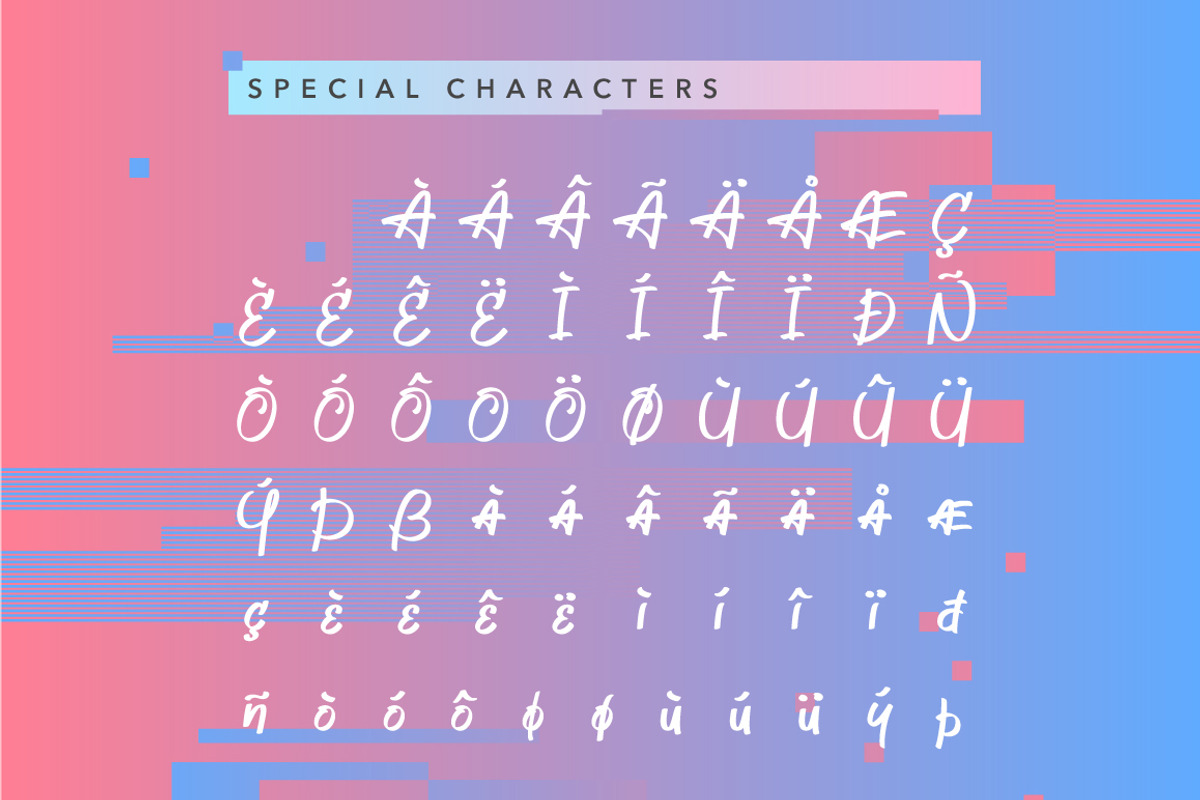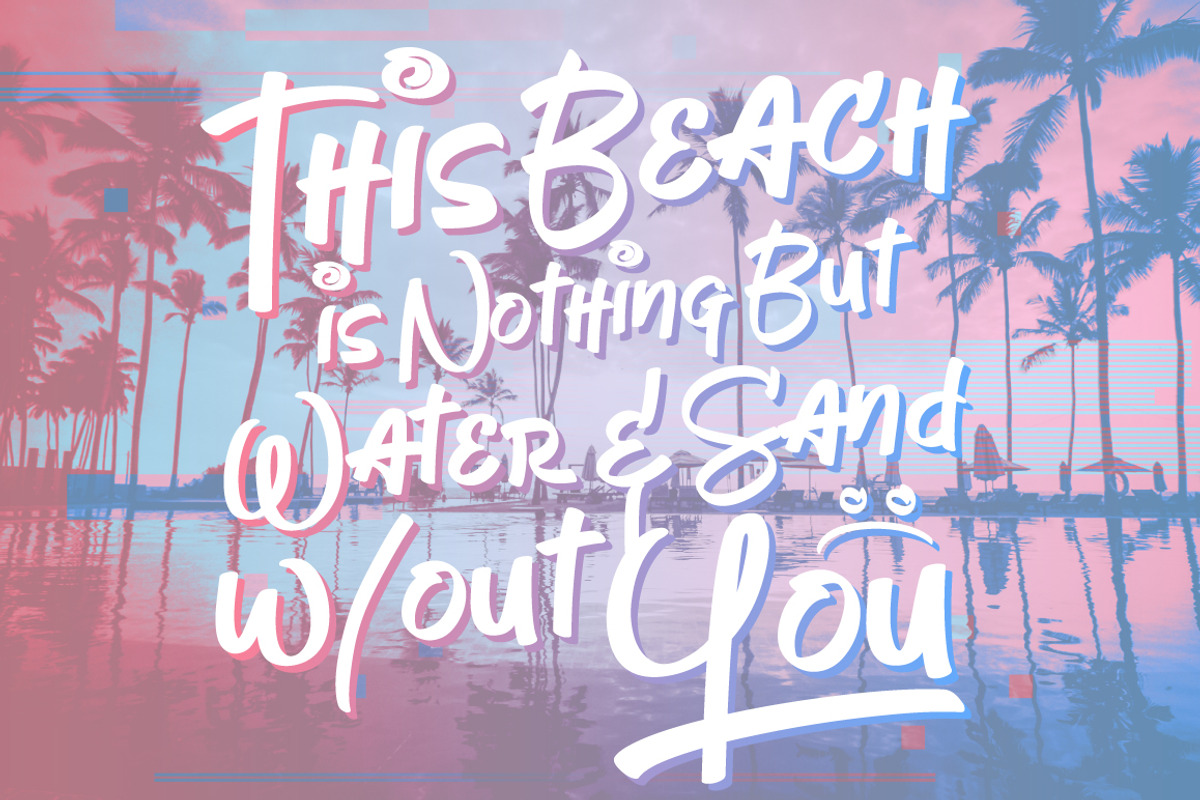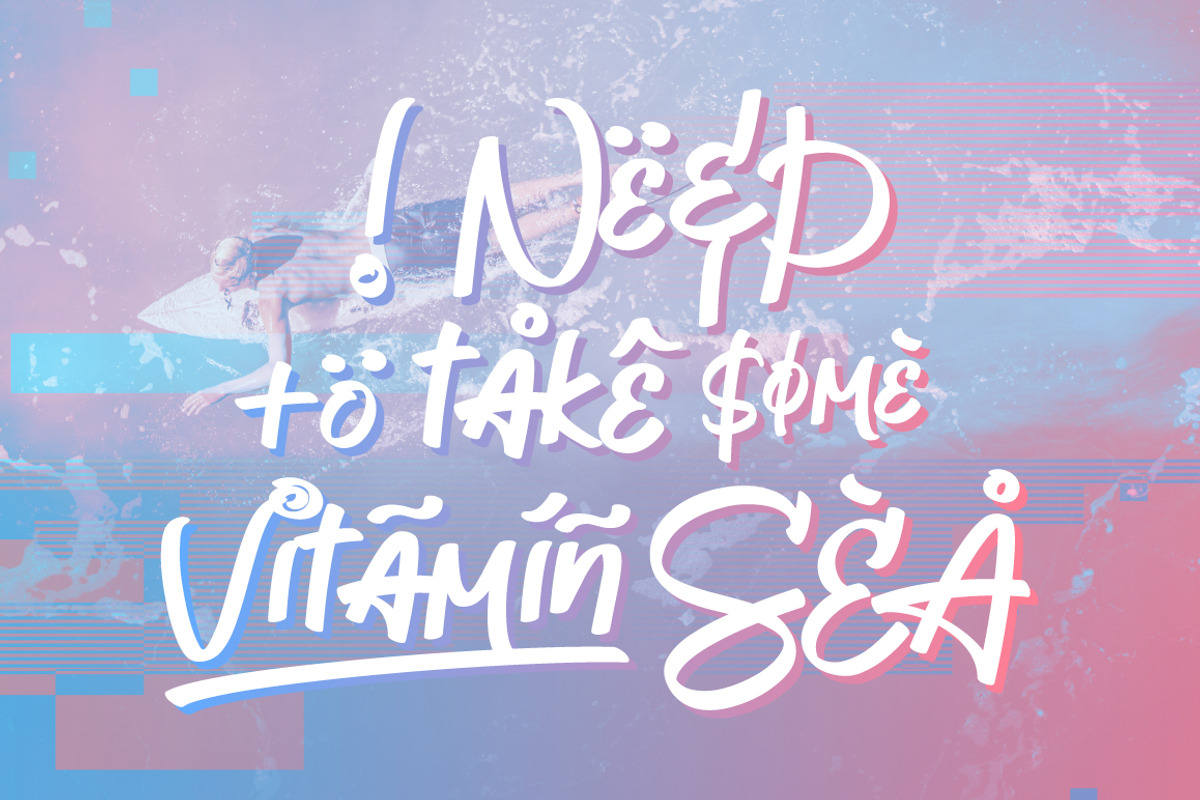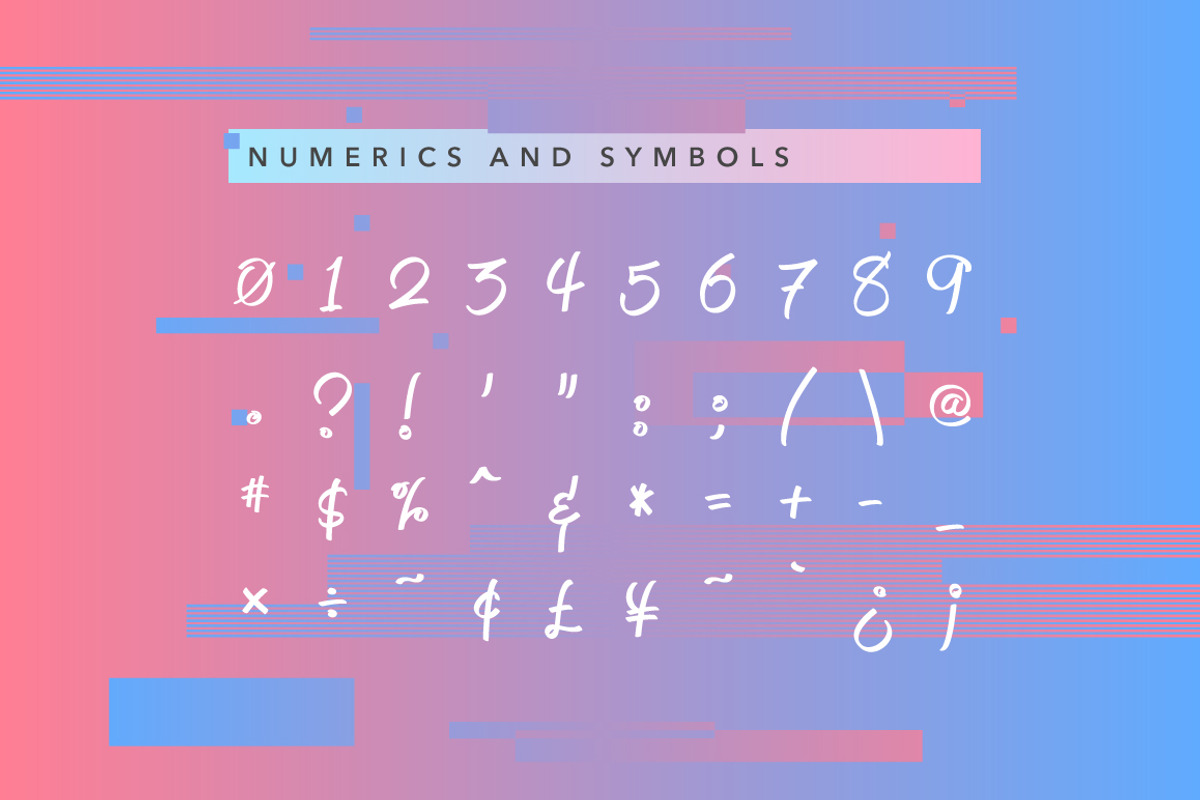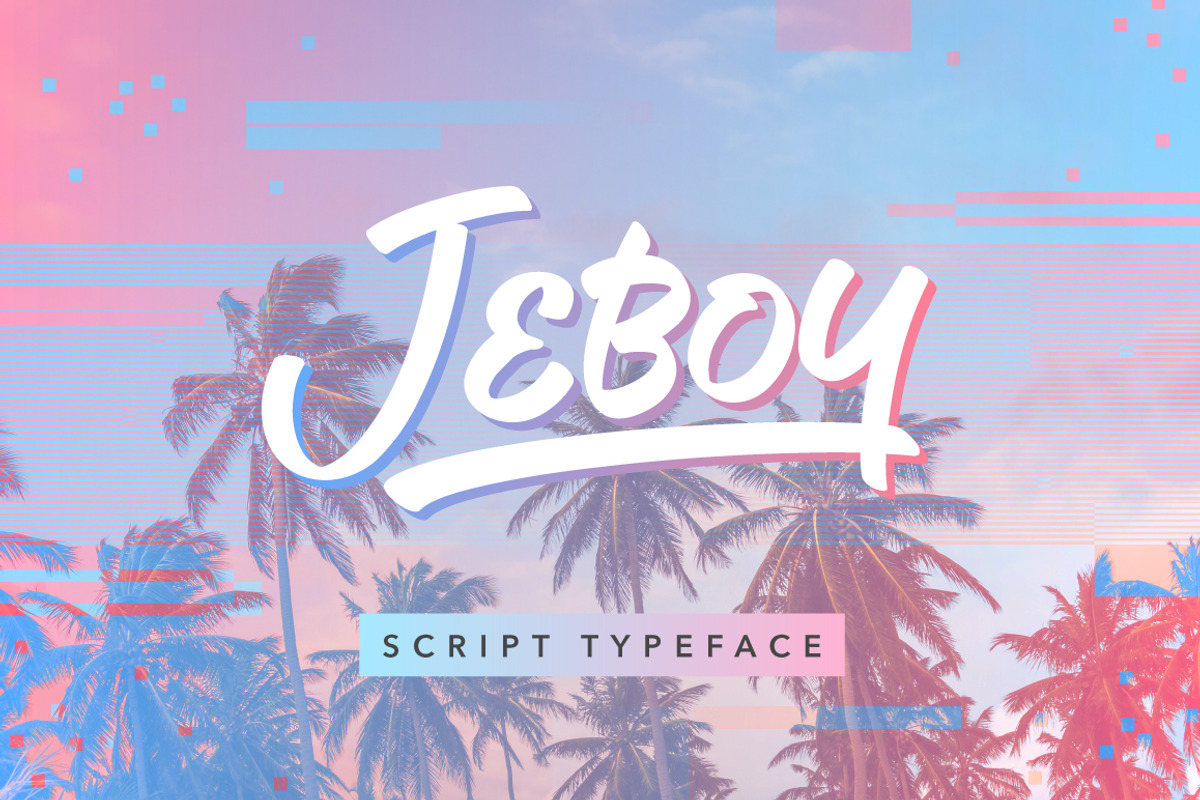
Jeboy Typeface
Jeboy Typeface — A Summer-themed Script Typeface originally created by Aaron Amar.
Why Jeboy Typeface is worth a look
Jeboy Typeface by Aaron Amar fits naturally into Branding, posters, packaging, typography.